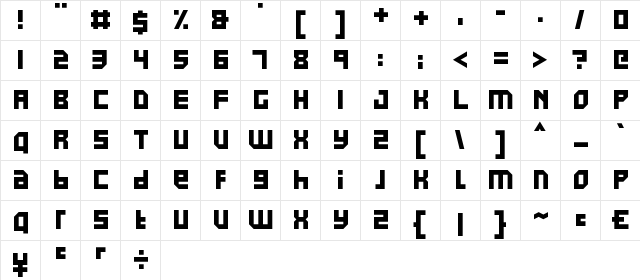
Pixel Powerline Regular
| Designer | Darrell Flood |
Design Context for Pixel Powerline Typeface
Pixel Powerline has the bold swagger of sports branding: strong, assertive letterforms designed to dominate headlines and jerseys alike.
Built for sports team identities, athletic apparel, event posters, and high-energy promotional material.
Font Pairing: Use alongside a condensed or geometric sans for supporting copy — keep the pairing bold, functional, and free of ornament.
Pro Tip: Pixel Powerline thrives on contrast — try it large, bold, and tight against a clean background for maximum visual impact.